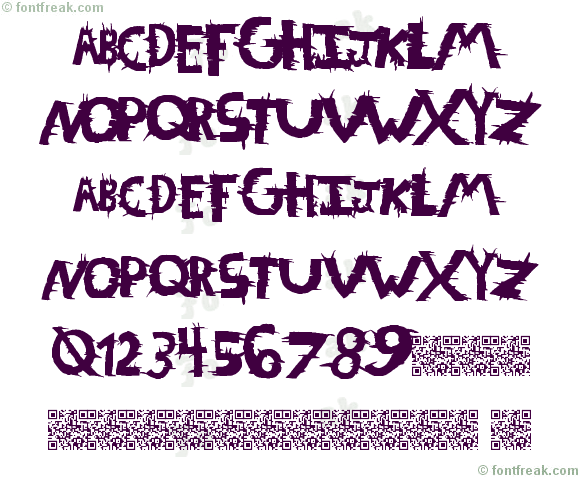
About WinterCrops
Introducing the WinterCrops font by Xerographer Fonts, a unique and expressive typeface that falls into the display category. This font features a distinctive style characterized by its rough edges and organic forms, giving it a handcrafted feel that stands out in a variety of design contexts. The stroke weight varies throughout the characters, creating an engaging visual rhythm that draws the eye. The contrast between thick and thin lines adds depth, while the irregular spacing contributes to its artistic flair.
WinterCrops is ideal for numerous creative applications. It works exceptionally well for promotional materials such as music festival posters, where its bold presence can capture attention. This font also shines on winter-themed invitations, adding a touch of whimsy and warmth to holiday gatherings. Additionally, it can be effectively used in branding for artisanal products, conveying a sense of authenticity and craftsmanship. Graphic designers and content creators will appreciate its versatility, making it a perfect choice for social media graphics that aim to stand out.
Targeted towards graphic designers, small business owners, and content creators, WinterCrops embodies a unique aesthetic that resonates with those seeking to infuse their projects with personality. The font's ability to convey emotion and thematic depth makes it suitable for various creative endeavors.
What truly sets WinterCrops apart is its ability to evoke a sense of nostalgia while remaining fresh and modern. Its unique graphic qualities allow it to transcend typical design boundaries, making it a valuable addition to any creative toolkit. For those interested in exploring this captivating typeface, a WinterCrops font free download is readily available, inviting you to incorporate its charm into your next project.